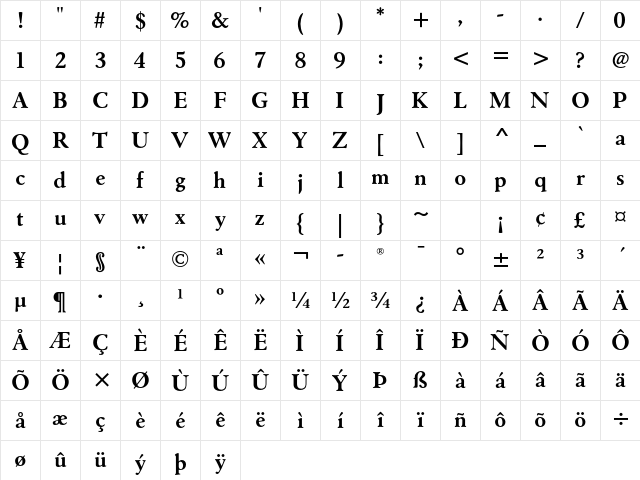
Winchester New ITC Std Bold
Designer: Jim Spiece
Design Context for Winchester New ITC Std
Winchester New ITC Std is a composed and adaptable typeface that performs quietly and consistently across a wide range of design contexts. Its bold stroke weight gives it real presence on the page.